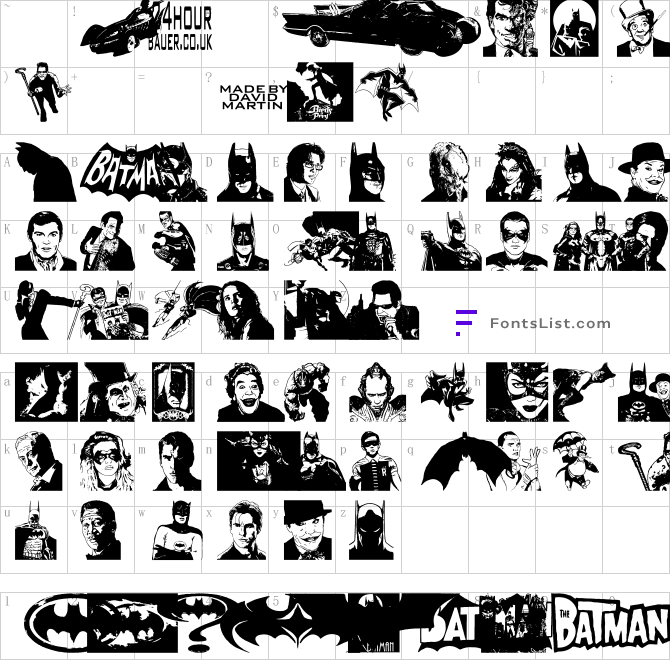
- Font Name:Batman The Dark Knight
Batman-The-Dark-Knight.ttf is a very beautiful artistic font, Batman-The-Dark-Knight.ttf is widely used in the design and printing of various books and pictures,Batman-The-Dark-Knight.ttf has a strong visual impact,Batman-The-Dark-Knight.ttf is a commonly used font in newspapers, magazines and books, and is used in posters, e-commerce Poster design, store design, logo design, font design and other fields.Batman-The-Dark-Knight.